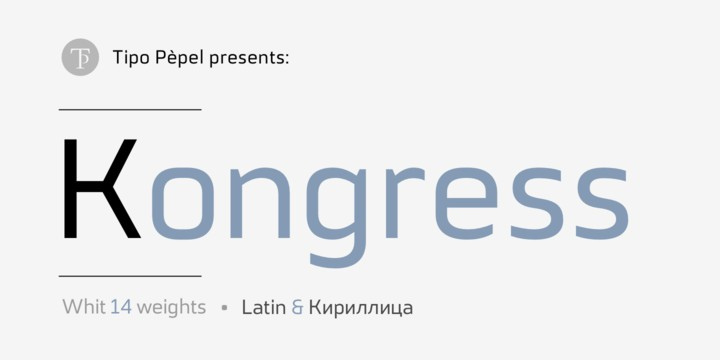
Kongress Font
Kongress Font is perfect for political campaigns, government documentation, legislative materials, official announcements, diplomatic correspondence, civic organizations, public policy reports, municipal branding, institutional signage, and formal governmental communications.
What makes Kongress Font exciting is its authoritative presence that embodies democratic values and institutional credibility through dignified letterforms. This commanding typeface combines governmental authority with public accessibility, creating a personality that communicates trustworthiness, transparency, and civic responsibility. The font's official character and democratic appeal make it perfect for political organizations, government agencies, and civic institutions seeking to project authority while maintaining public trust and accessibility.
The Kongress Font family includes Regular, Bold, Light, Medium, Semi-Bold, Condensed, Extended, and Official variants. Each weight maintains the font's authoritative character while providing comprehensive typographic flexibility for governmental brand identity systems and civic design applications across diverse political platforms.
Whether you're developing political brand identities, creating governmental documentation, designing civic marketing materials, or building institutional campaigns, Kongress Font delivers unmatched authority and democratic appeal. Its official presence makes it perfect for political parties, government agencies, civic organizations, and public institutions seeking authentic governmental representation.
The font's balanced proportions and authoritative details ensure optimal performance across official documents while maintaining its distinctive institutional character. Each letterform has been carefully designed to convey reliability, transparency, and democratic accessibility that resonates with citizens seeking trustworthy governance and civic engagement.
This versatile typeface excels in governmental environments, offering designers the authority needed for comprehensive civic brand communication strategies. The extensive character set includes official alternates, institutional ligatures, and democratic symbols for political market positioning and governmental brand storytelling.
Embrace the power of institutional design that builds public trust and celebrates democratic values.